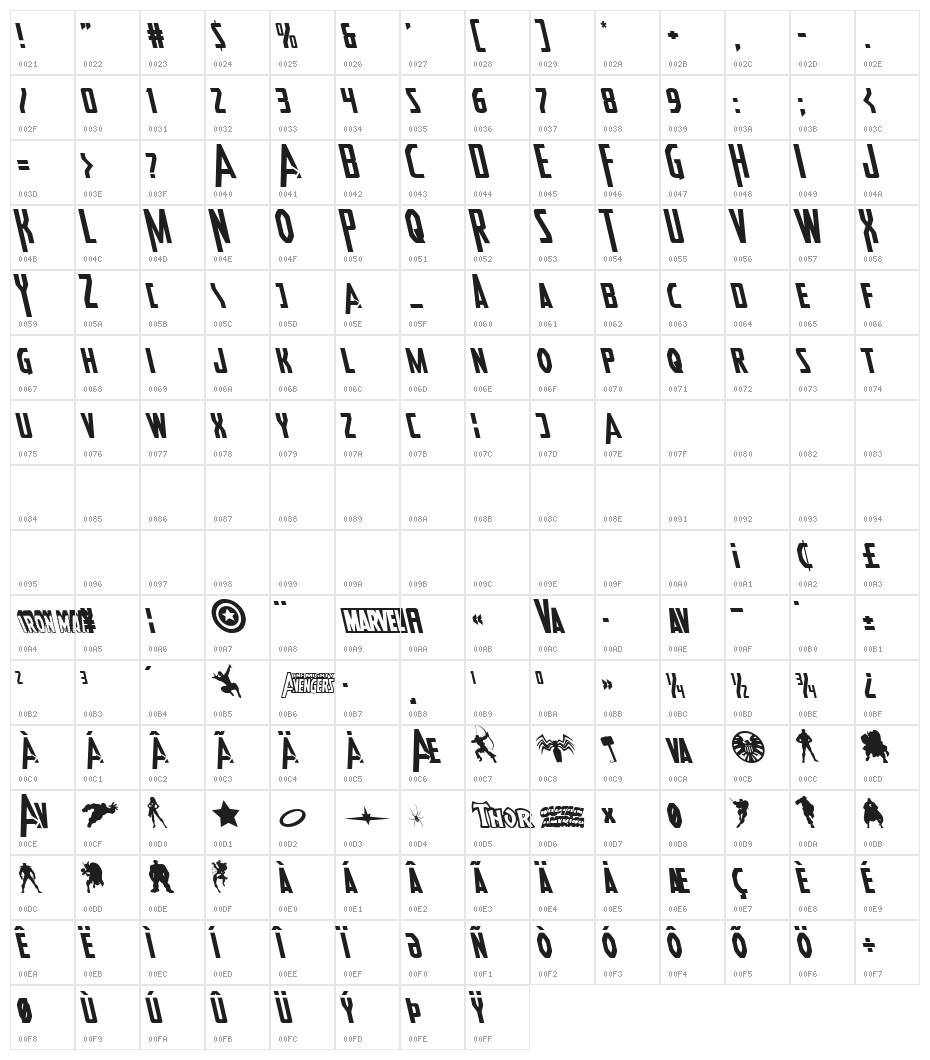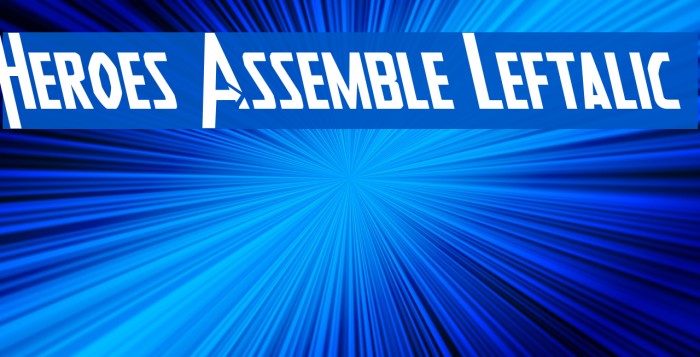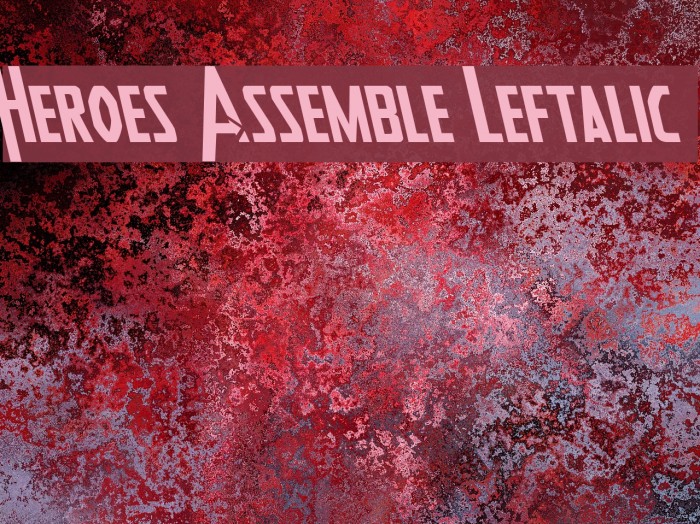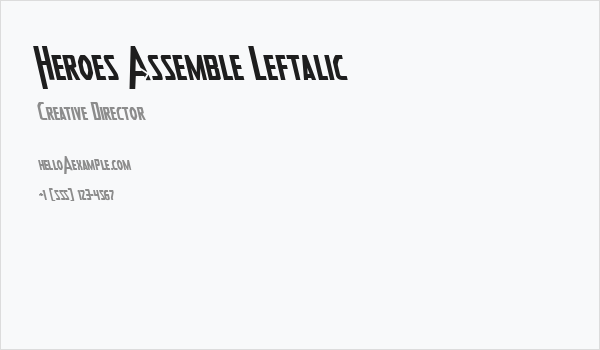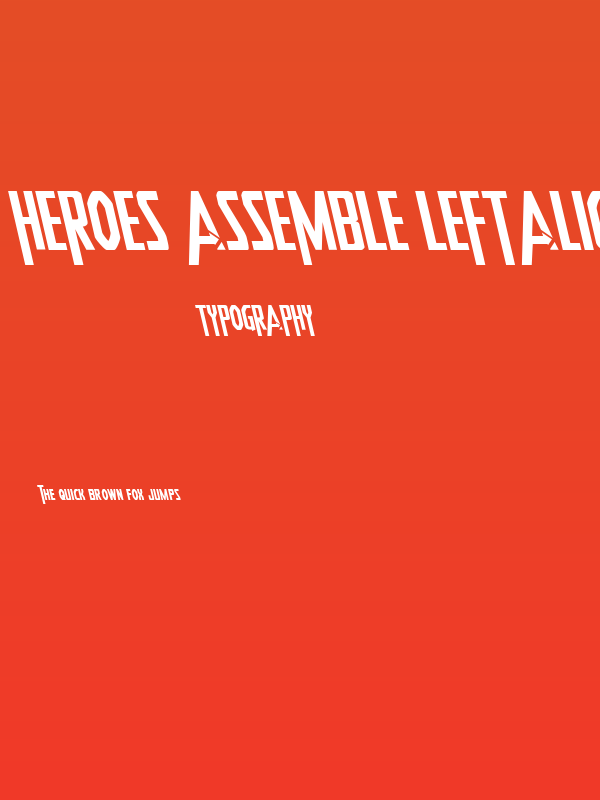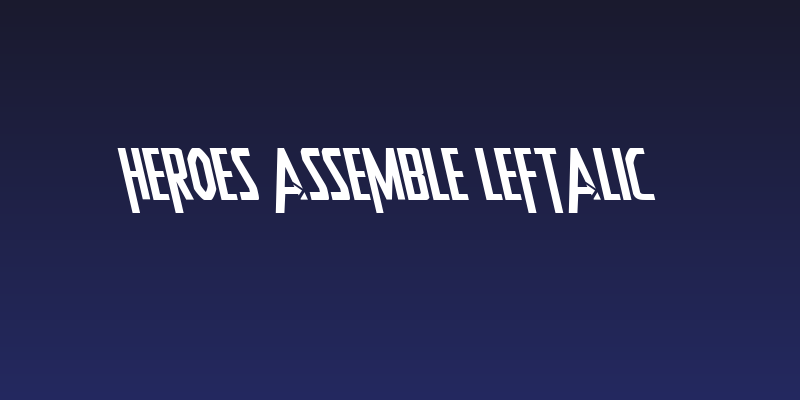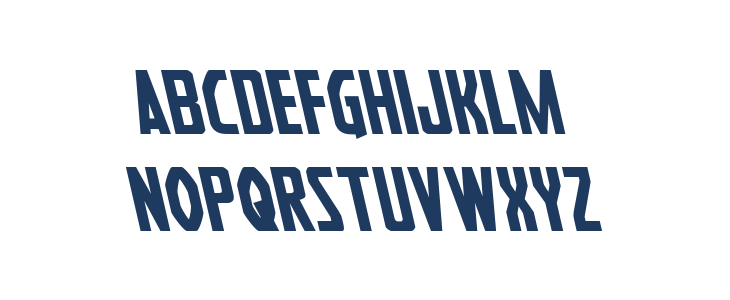
Heroes Assemble Leftalic Font
Heroes Assemble Leftalic Description
This font features a bold and dynamic style with a strong, angular design. The letters are sharply cut with a noticeable slant, giving them a sense of movement and energy. The uppercase and lowercase letters maintain a consistent style, with a geometric influence that adds to the font's modern appeal. The numbers and special characters are equally bold, ensuring uniformity across all characters. This font's unique style makes it stand out, perfect for projects that require a strong visual impact.
Proposed ProjectsIdeal for superhero-themed posters, action-packed video game titles, and dynamic branding projects.